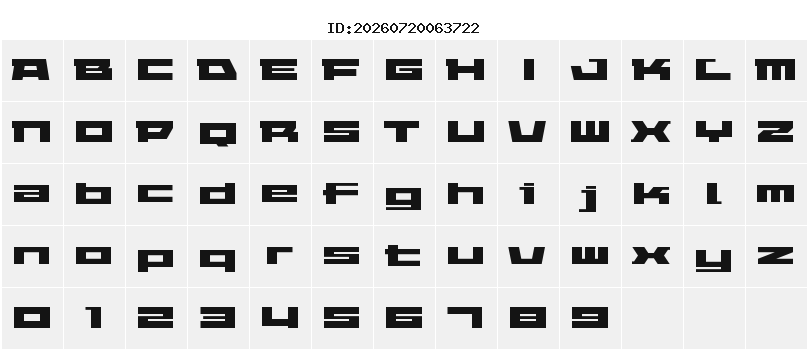
• Font Name: ELEPHANT A Regular
About ELEPHANT A Regular.ttf
ELEPHANT A Regular.ttf is a modern, elegant sans-serif font designed for ultimate readability and visual harmony. Perfect for branding, headlines, web design, and print materials.